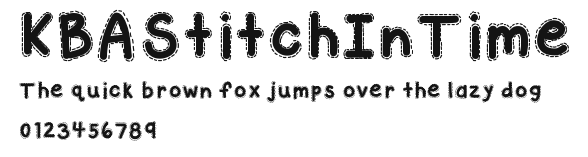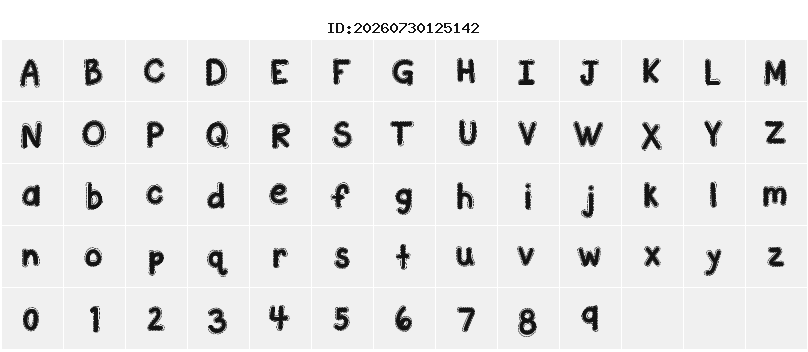
KBAStitchInTime Preview
• Font Name: KBAStitchInTime
• Full Font Name: KBAStitchInTime
• PostScript Name: KBAStitchInTime
About KBAStitchInTime.ttf
KBAStitchInTime.ttf is a modern, elegant sans-serif font designed for ultimate readability and visual harmony. Perfect for branding, headlines, web design, and print materials.